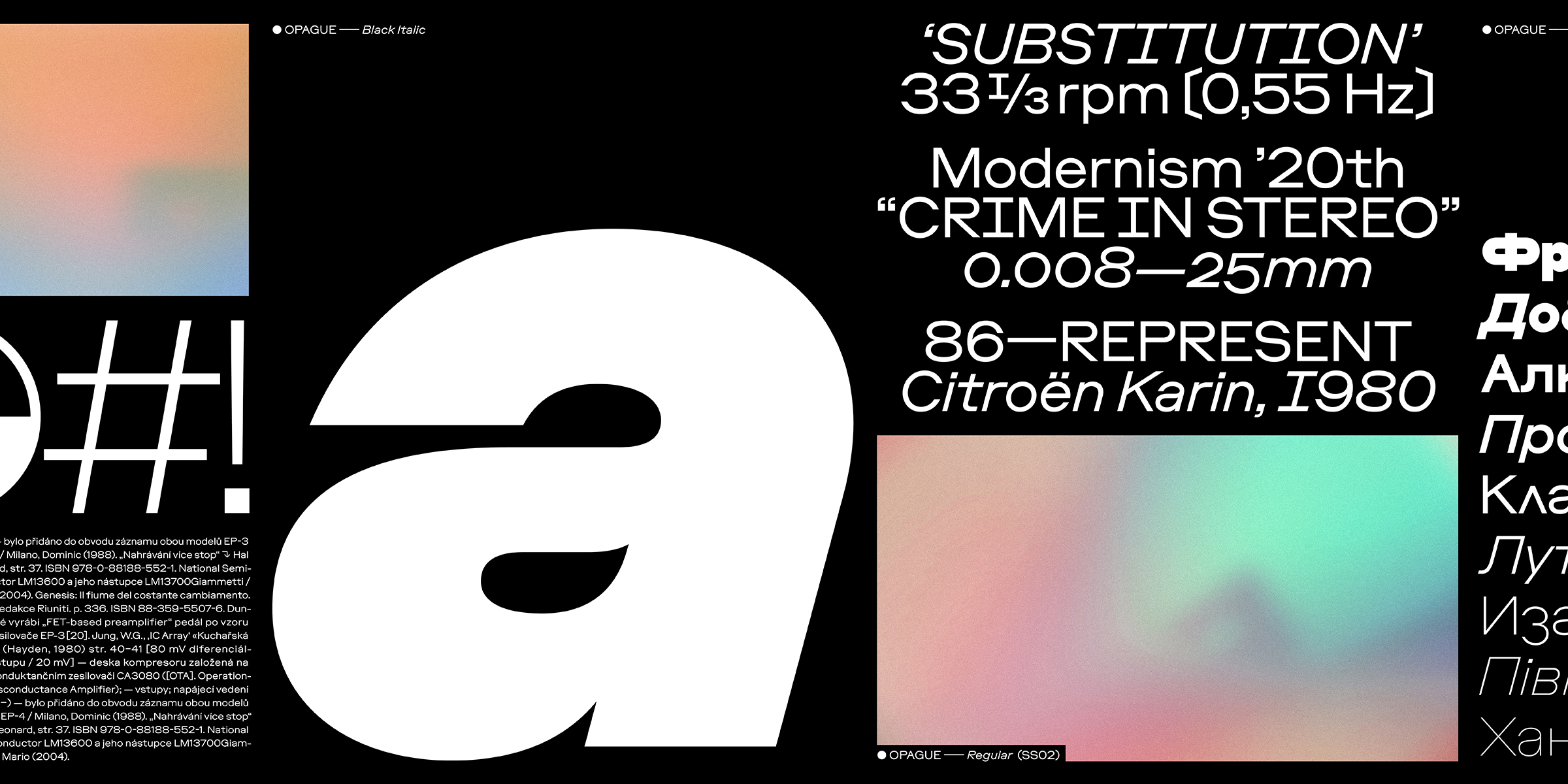
Opague is a synthetically distilled postmodern geometric sans. Its geometry and apertures are a negotiation of historical references and an insatiable appetite for brutal simplicity. Opague’s character is shaped by a circular O and enforced horizontal lines composed by the apertures and middle height.
Lining Gothic nº82 by Bernard Brother & Spindler, Opague’s historical reference. Image: Smithsonian Libraries
Venus by Bauer Type Foundry, Opague’s historical reference. Image: Smithsonian Libraries
Opague forces itself into the spaces where it’s needed. Whether on takeaway lightbox menus or sophisticated wine lists, intricate interface designs or plain headlines, overarching movie titles or closing credits, vast record covers or intimate lyric sheets; Opague is at the service of your everyday design needs.
The family contains a wide range of nine weights, each with a corresponding italic plus a variable font. Opague supports Greek, Cyrillic, and Latin script. Additionally, it’s brimming with typographic tools: arrows, symbols, shapes, additional brackets, all kinds of stylistic sets and contextual alternates, case-sensitive punctuation and a countless amount of sets of figures.